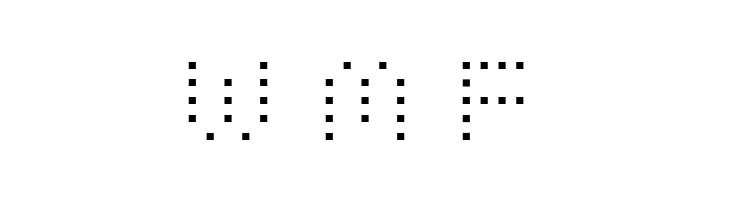
A dot matrix style font with a retro digital display aesthetic.
A dot matrix style font with a modern, digital aesthetic.
A modern, dotted font with a digital, pixelated style.
A modern dot matrix font with a pixelated, digital display style.
A modern, geometric font with rounded edges and a clean, minimalistic design.
A bold, geometric font with a modern and professional style.
A digital, segmented font inspired by LED displays.
A bold, blackletter-style font with sharp, angular lines and a dramatic presence.
A modern, handwritten italic font with a sleek and fluid style.
A modern, dotted font with a digital and geometric style.
A playful, hand-drawn font with quirky letterforms and smiley face characters.
A bold, hand-drawn font with dynamic, angular strokes and an expressive style.
A bold, playful font with rounded characters and a vintage flair.
A bold, modern font with thick strokes and a strong presence.
A modern, geometric font with rounded edges and a clean, streamlined appearance.
An elegant serif font with refined curves and subtle stroke contrast.
A bold, dynamic font with a slant and sharp serifs, ideal for impactful designs.
A tall, narrow font with subtle serifs and a modern yet classic style.
A tall, playful font with rounded terminals and a whimsical style.
A bold, angular serif font with a vintage flair and dynamic presence.
A decorative serif font with elongated serifs and a tall, narrow structure.
A playful, bold font with rounded edges and a hand-drawn feel.
A distressed, grunge-style font with bold, irregular strokes and a textured appearance.
A dynamic and elegant italic font with smooth curves and moderate contrast.